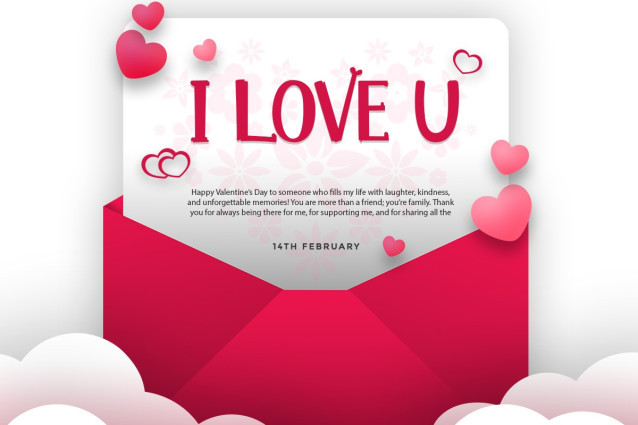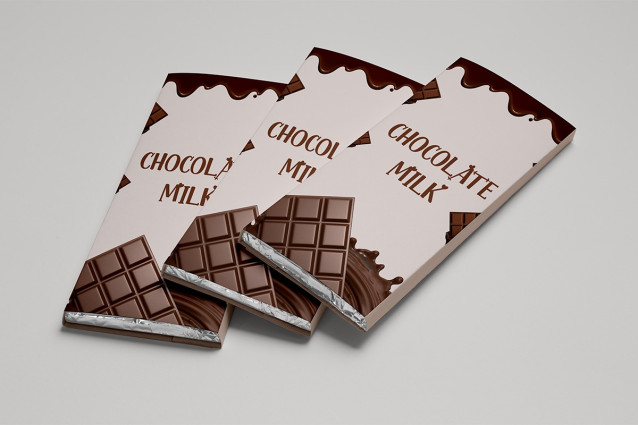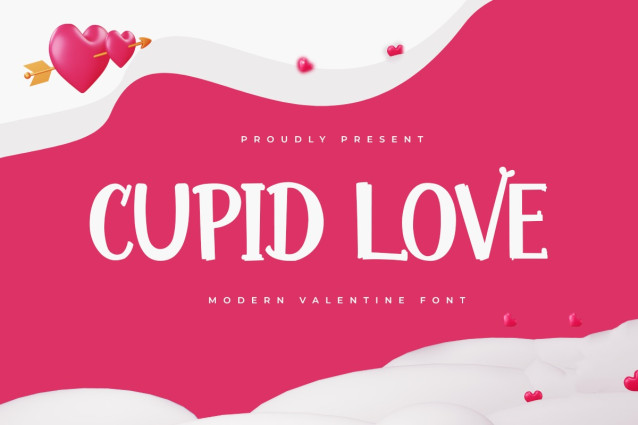
Cupid Love Font
Cupid Love Font is a blend of modern and beautiful font with an elegant and cute appearance. This font looks so beautiful with the addition of a love shape inside the letters. This font type is the best Valentine font for use on Valentine’s celebration supplies such as valentine invitations, greeting cards, and decorations. This font is also the best romantic font that can use on souvenirs and merchandise. Cupid Love A Modern Display Valentine Font will give everyone who sees it a simple yet cute appeal. From the explanation of these characteristics and uses, the Cupid Love A Modern Display Valentine Font is amazing. For other formal events, such as art exhibitions, you can use our Cupid Love A Modern Display Valentine Font on exhibition titles, team shirts, signage, and other items. This font can be applied as a digital font or a print font. Combined with the matching theme, supporting images, and atmosphere, the beauty of the Cupid Love A Modern Display Valentine Font will shine like sunlight illuminating a room. Our Display & Decorative font collection is used as Figma Fonts, Canva Fonts, Freepik Fonts, and Adobe Fonts. They also work as Windows Fonts and Apple Fonts. For your social media needs, you can use and install fonts in our Script & Signature font collection to use as Instagram Fonts, Facebook Fonts, and Twitter Fonts.